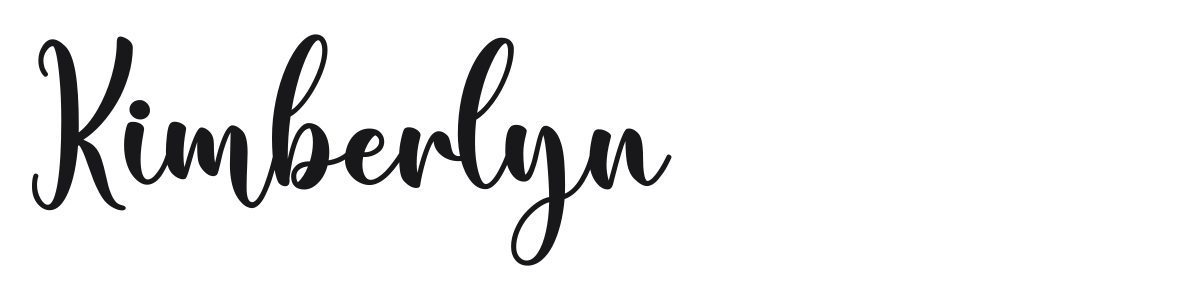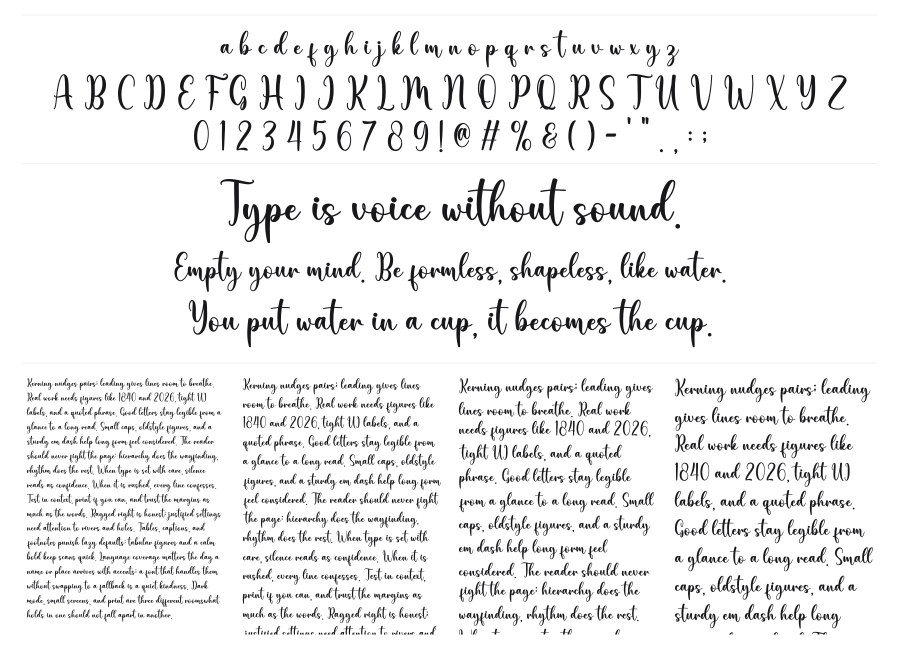
Kimberlyn
Kimberlyn is a flowing casual script with lively stroke contrast and an energetic bouncy baseline. Generous looping ascenders and graceful descenders give it a handcrafted warmth that feels natural and expressive. It draws the eye without feeling stiff, making it a strong choice for wedding stationery, branding, and lifestyle packaging.